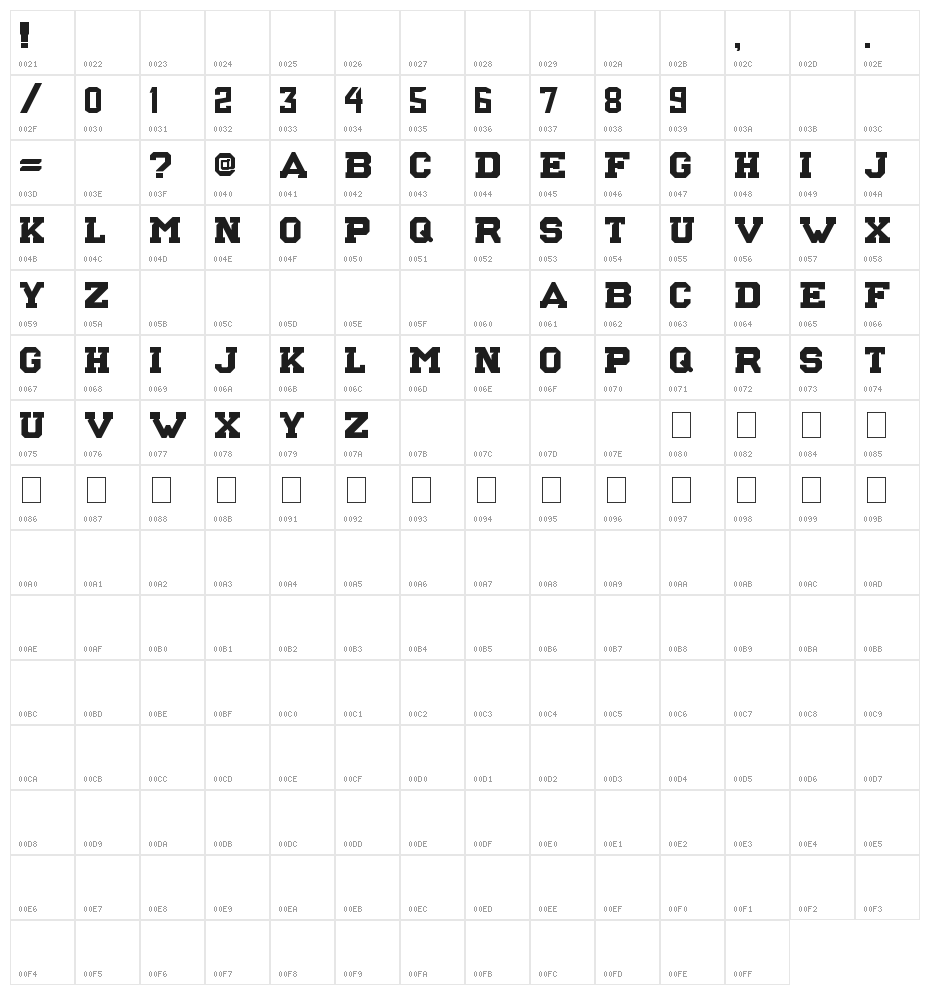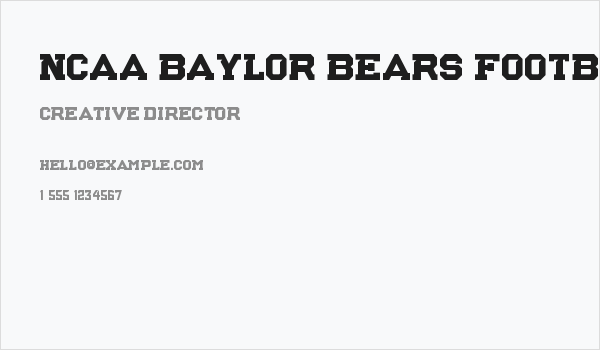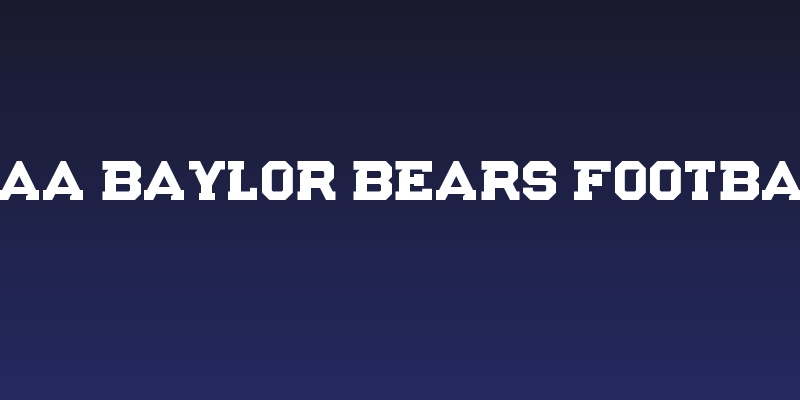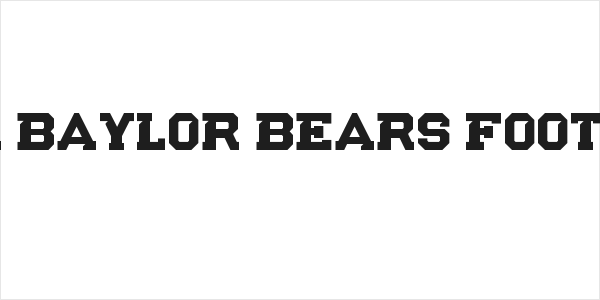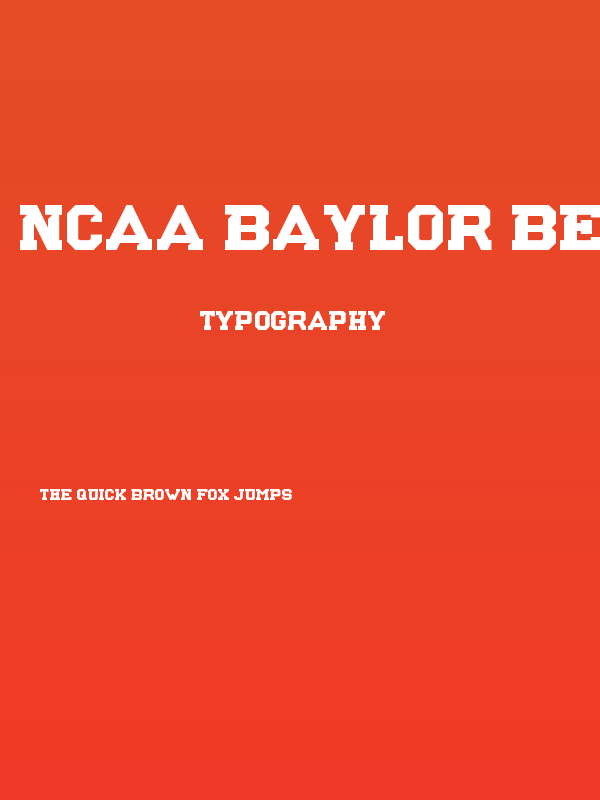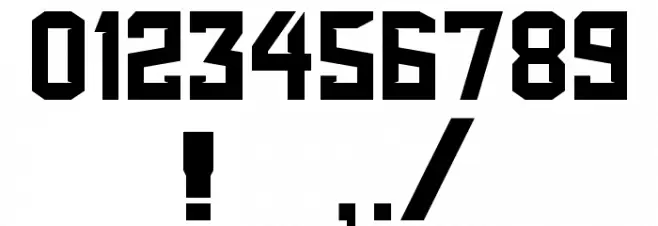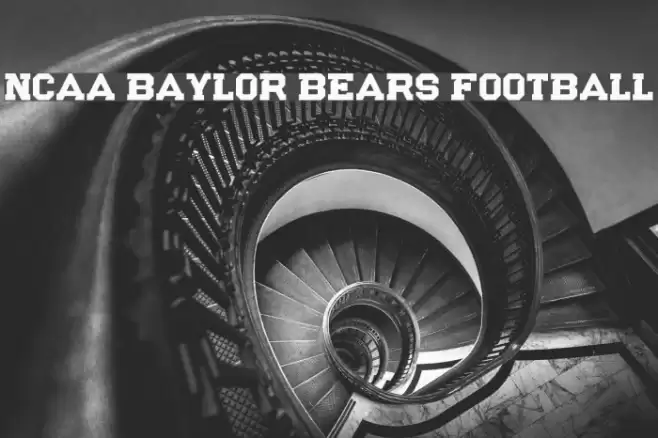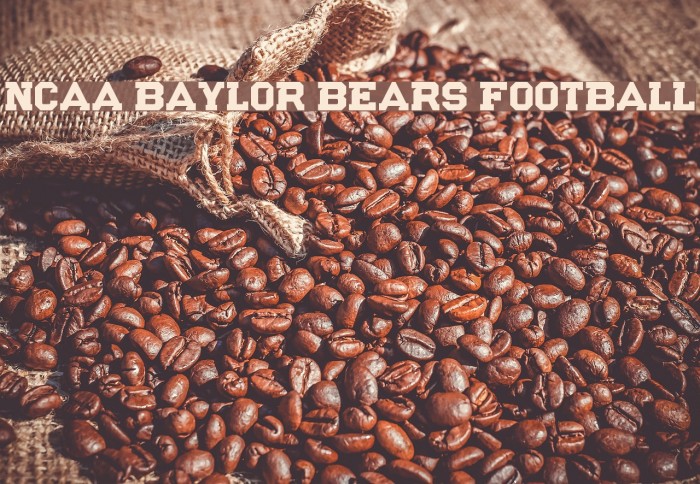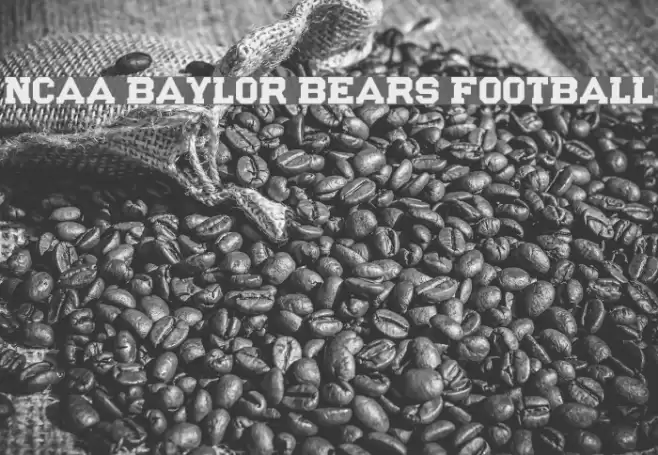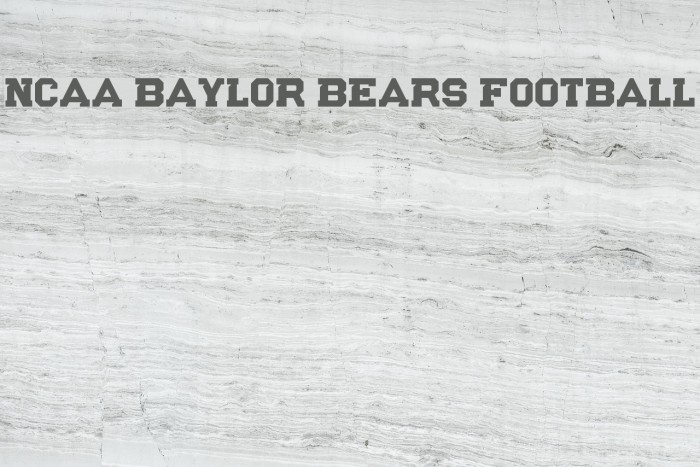
NCAA Baylor Bears Football Font
NCAA Baylor Bears Football Description
This font features bold, blocky characters with a strong, athletic feel, reminiscent of traditional sports team lettering. The uppercase letters are uniform in height, with sharp angles and a solid presence, making them ideal for conveying strength and determination. The numbers follow the same robust style, ensuring consistency across all characters. The special characters are designed to match the boldness of the alphabet, maintaining the overall cohesive look. This font is perfect for projects that require a commanding and energetic aesthetic.
| Overall Style | Athletic, Bold, Commanding |
| Use Case | Headlines, Logos, Sports Branding |
| Proposed Projects | Sports team branding, athletic event posters, merchandise design, and logo creation. |